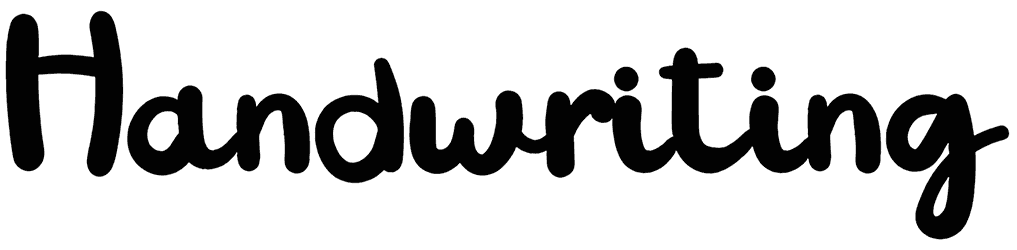
Handwriting Font
Handwriting is, without a doubt, designed in an elegant style. With its graceful curves, this handwritten font is ideal for adding a touch of class to a professional document or for setting the tone for an intimate wedding invitation.